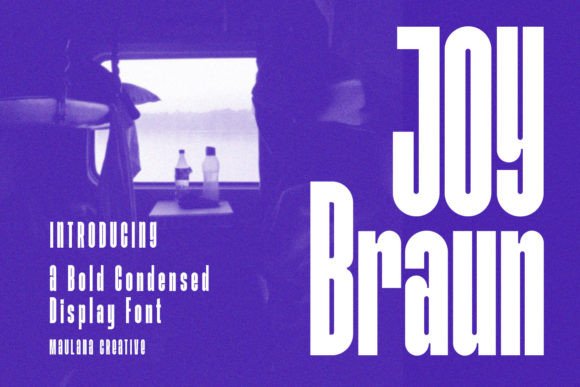
Dive into the captivating world of the Joy Braun Font, a modern sans-serif typeface that exudes sophistication and allure. Join the creative elite and unleash your imagination with this remarkable font, crafted by the ingenious Maulana Creative, especially for discerning individuals seeking to make a bold statement.
Prepare to be mesmerized as Joy Braun's elegant curves dance across your screen, inviting you to embark on a typographic adventure. Whether you're conjuring enchanting logos, crafting unforgettable wedding invitations, or penning heartfelt quotes, this font will elevate your designs to new heights of artistry.
Step into the realm of limitless possibilities with Joy Braun. Its versatility knows no bounds, effortlessly adapting to any creative endeavor you set your heart upon. From captivating advertisements that ignite imaginations to polished print layouts that leave an everlasting impression, this font is your trusted companion in the pursuit of typographic excellence.
Indulge in the exquisite artistry of Joy Braun and let your creativity soar. Its timeless appeal and undeniable charm will captivate your audience, leaving them spellbound by the beauty of your words. Experience the symphony of elegance and innovation as Joy Braun transforms your designs into masterpieces that will resonate with hearts and minds alike.